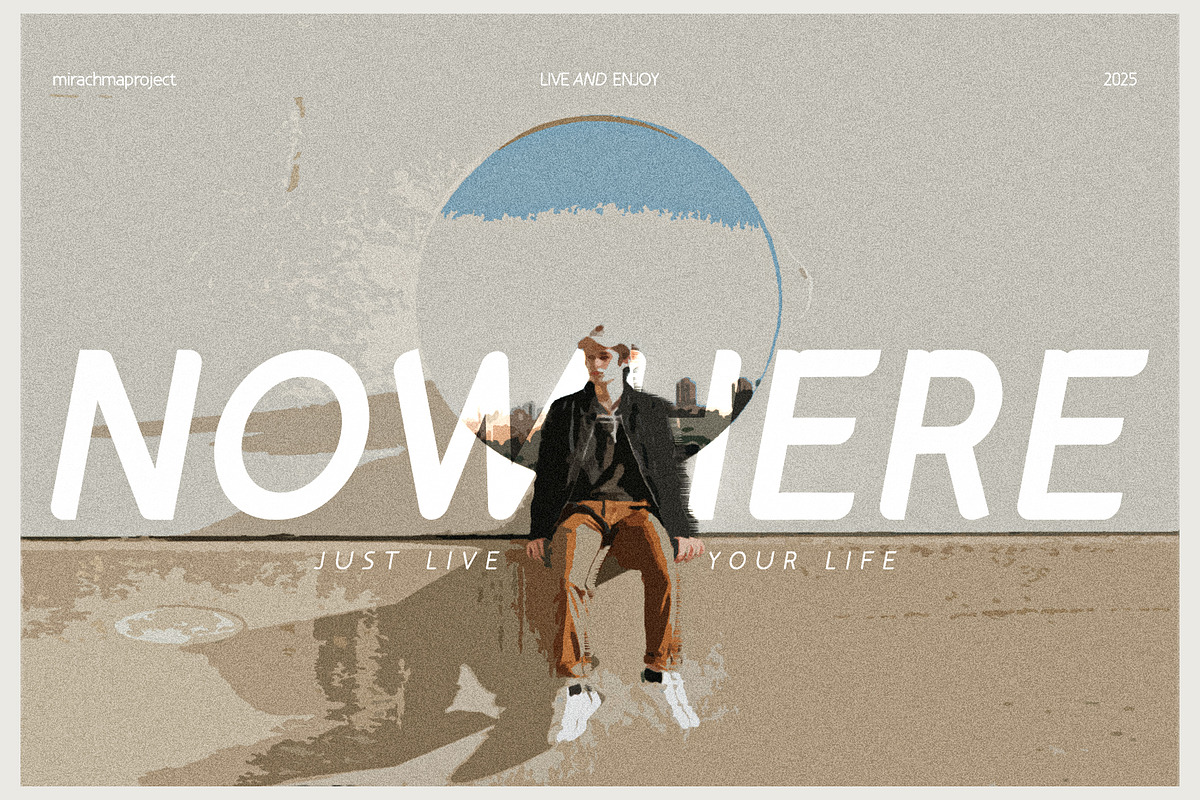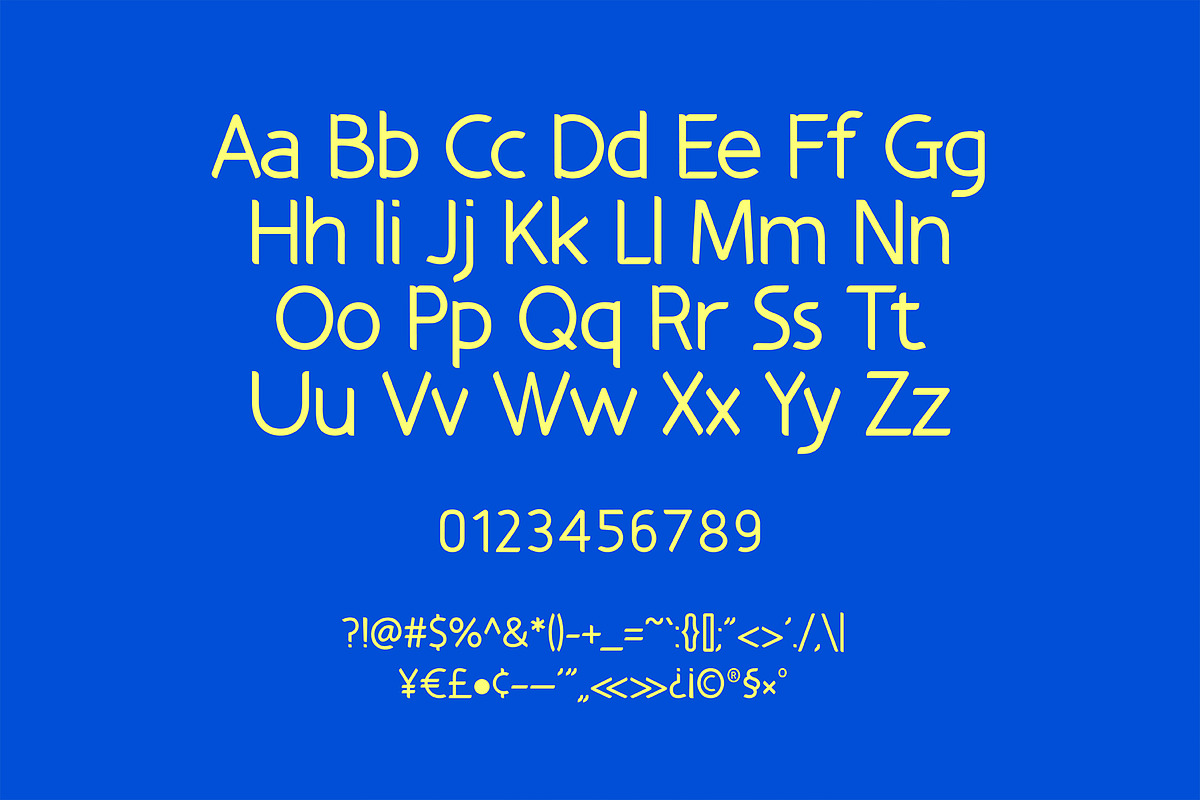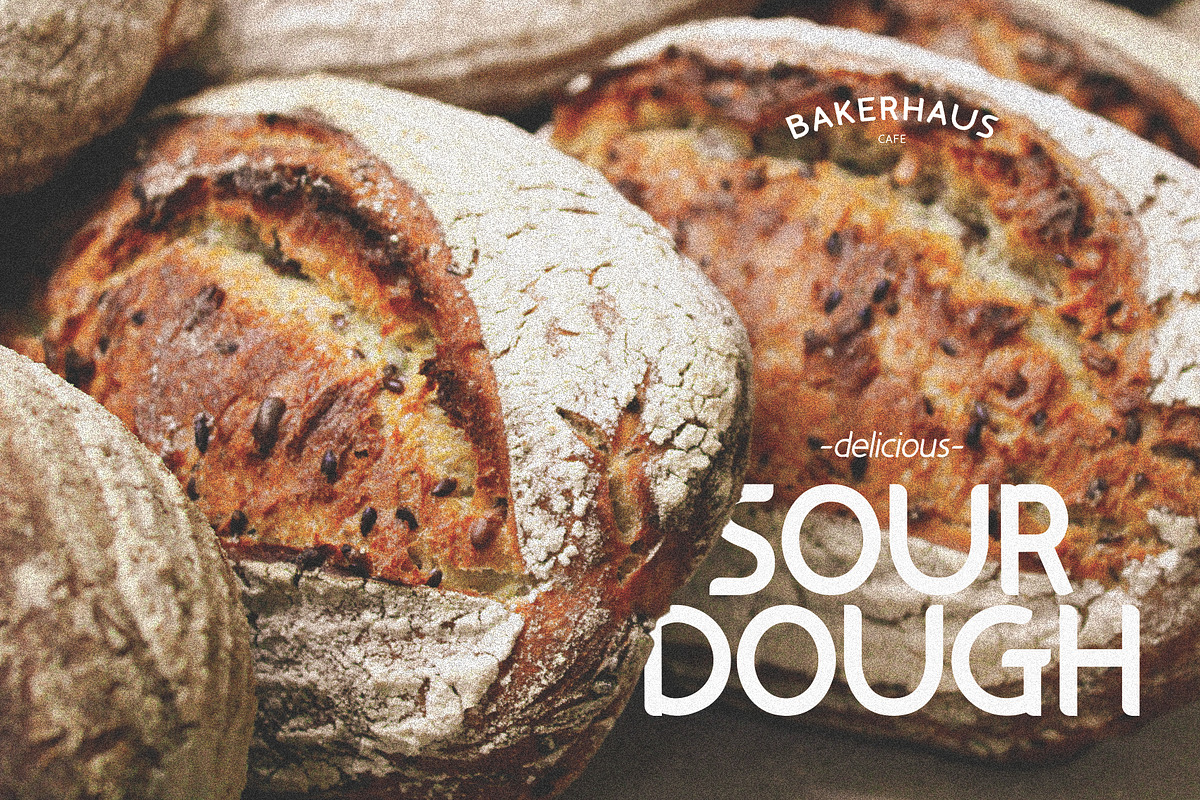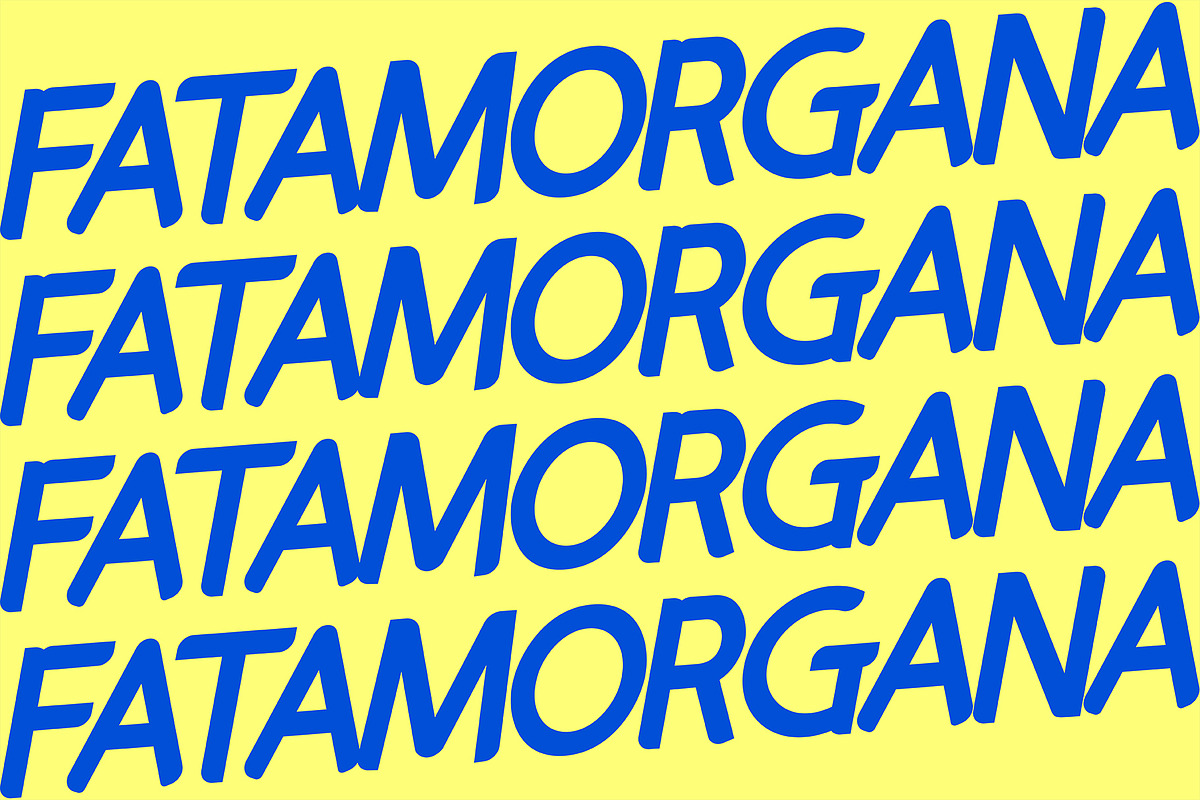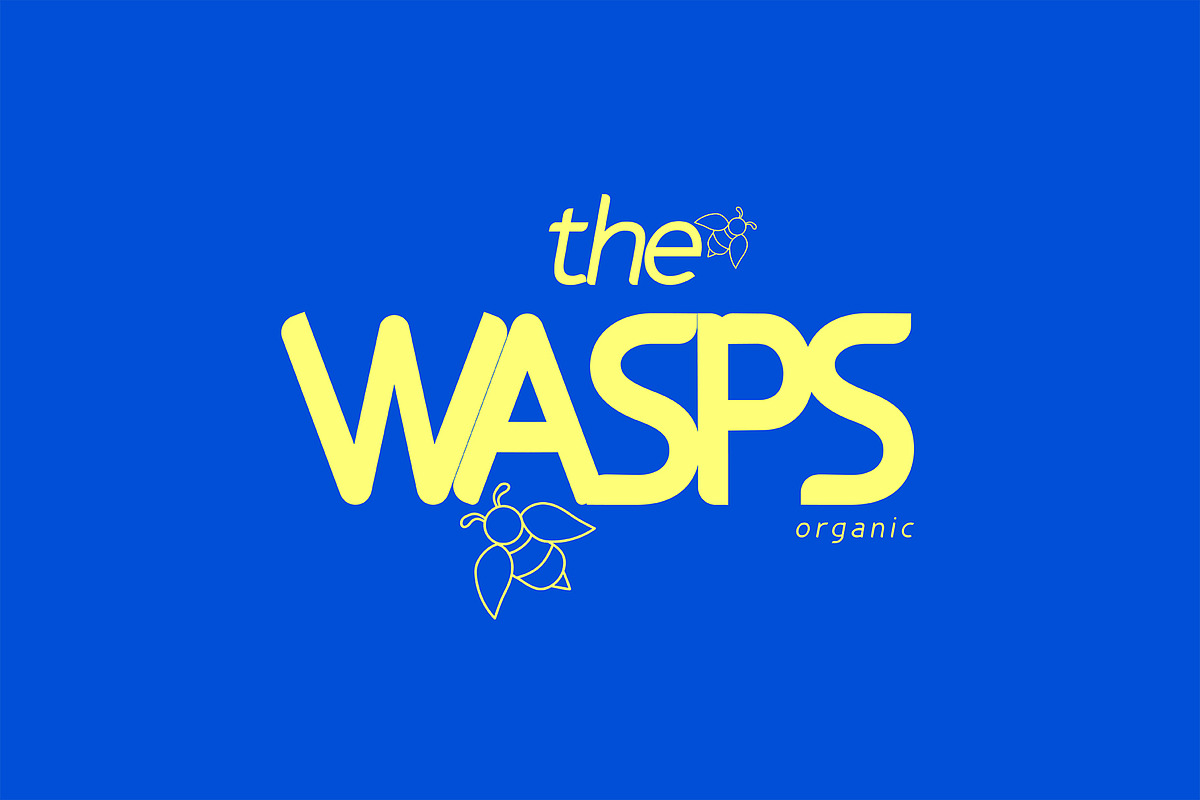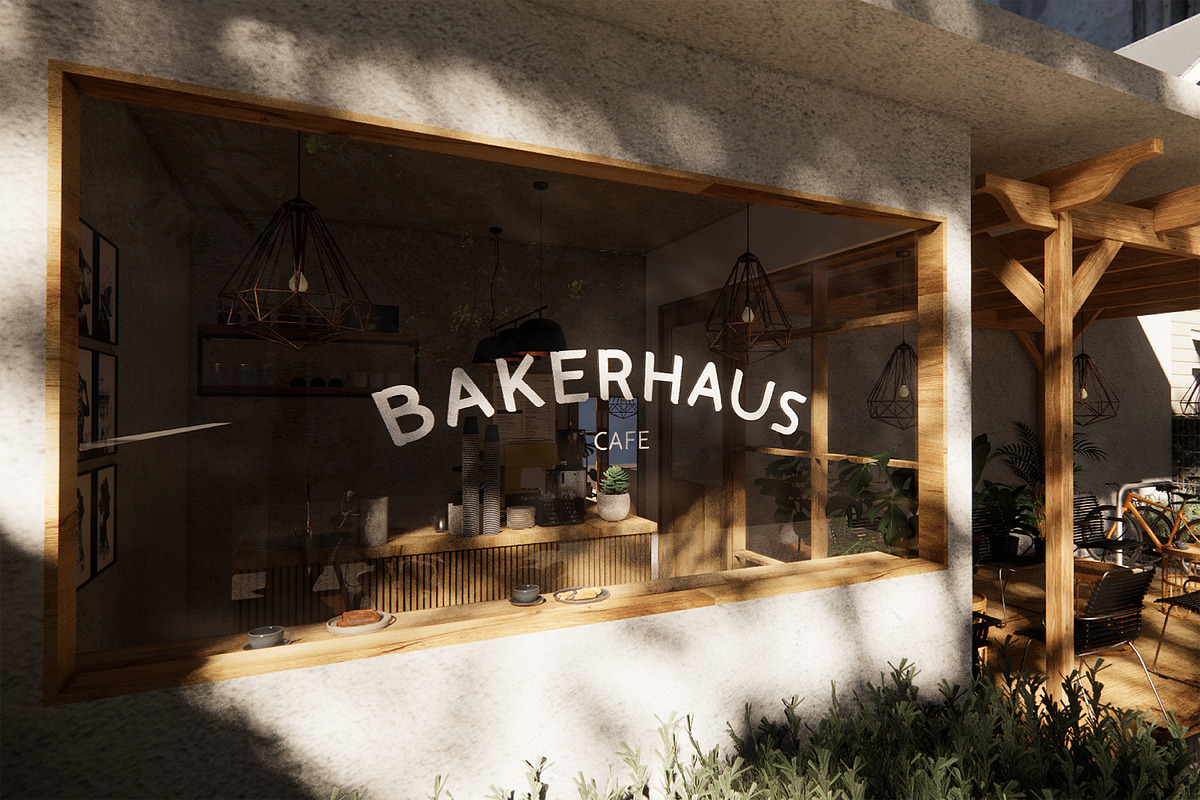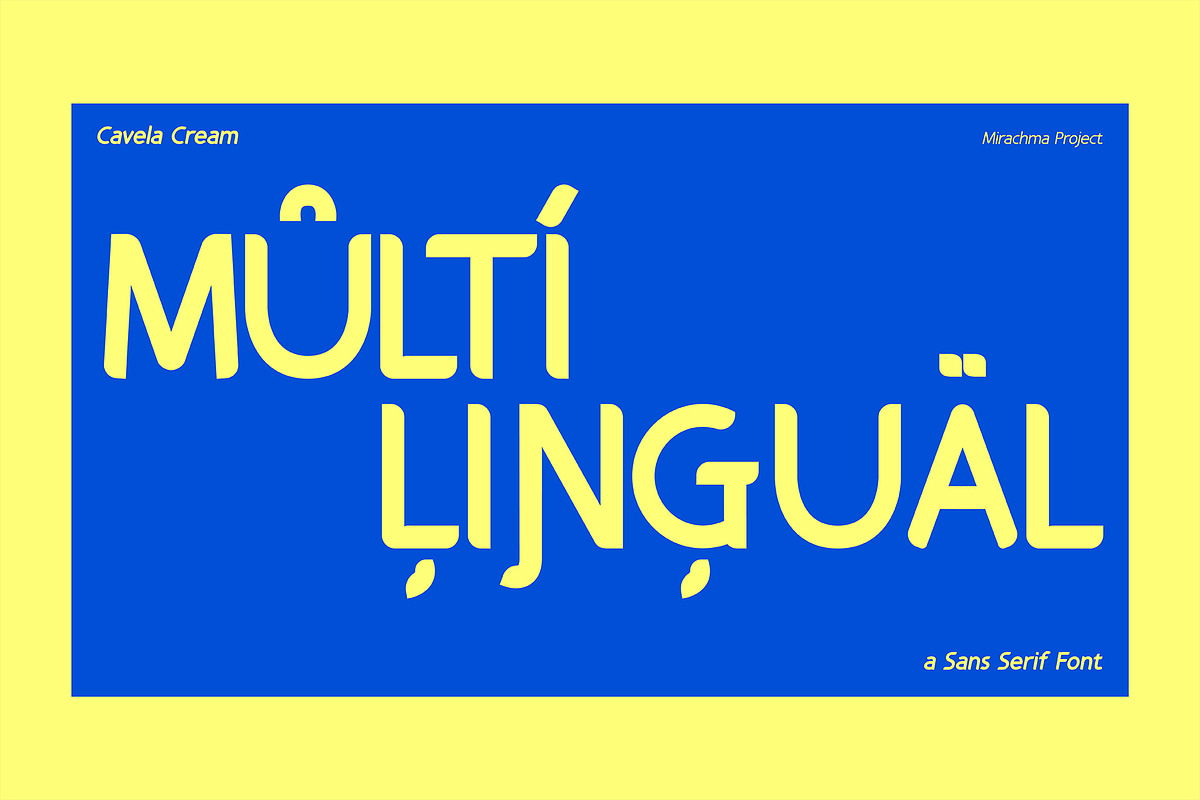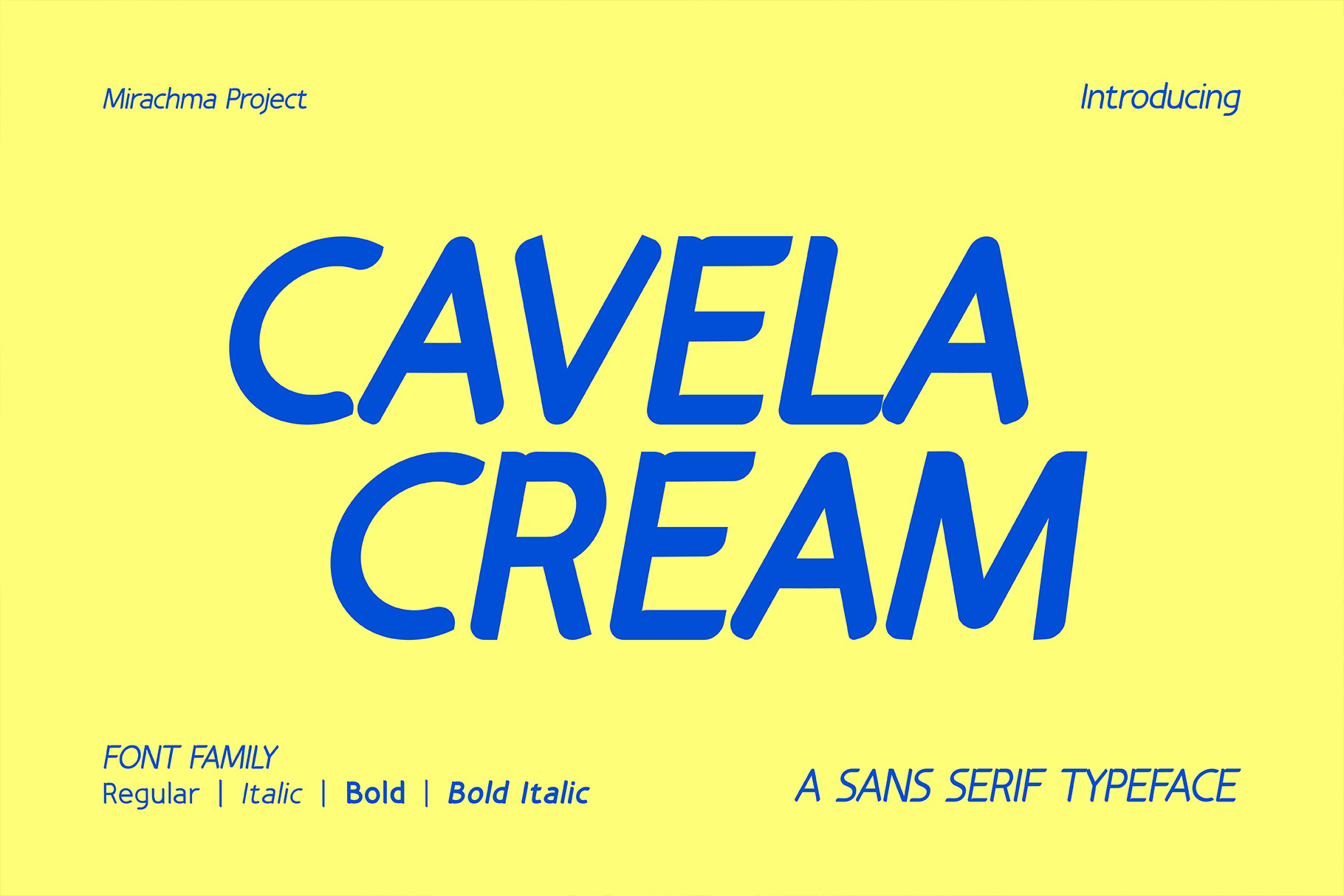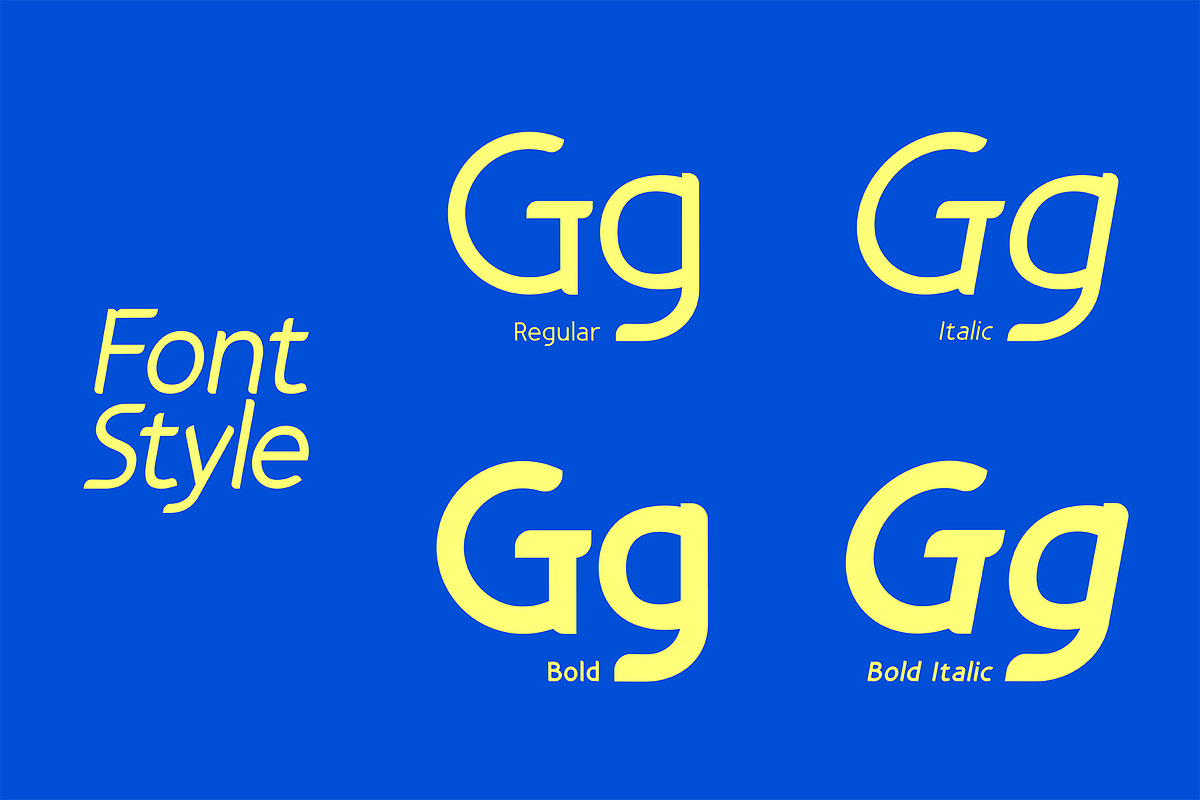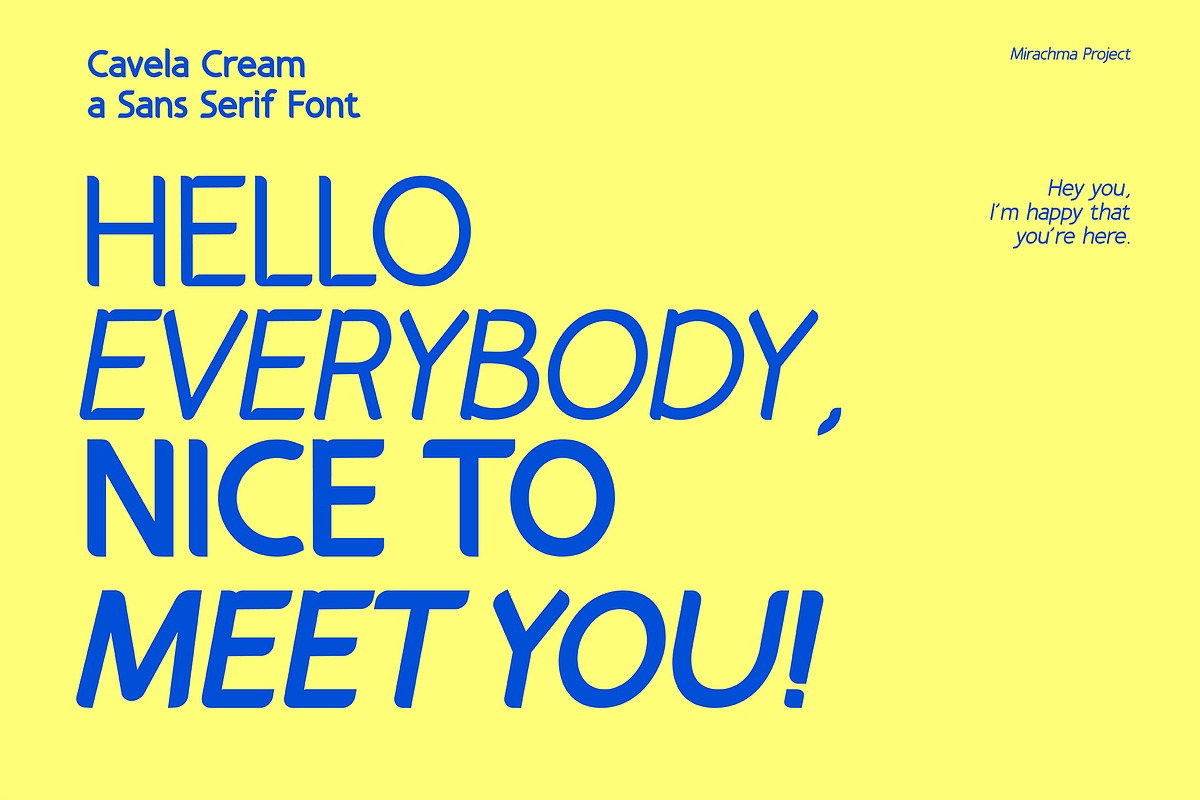
Cavela Cream - Sans Serif Font
Let me introduce you to my new font collection, CAVELA CREAM!
CAVELA CREAM is a beautiful, aesthetic font with four styles: Regular, Italic, Bold, and Bold Italic. CAVELA CREAM adds a touch of vintage charm to your modern designs. With its smooth, feminine, and elegant curves, this font is perfect for logos, posters, branding, packaging, wedding invitations, presentations, and more. Designed to enhance your creative projects with a feminine, sweet yet fresh aesthetic.
- Multilingual Font Support
- Uppercase & Lowercase Alphabets